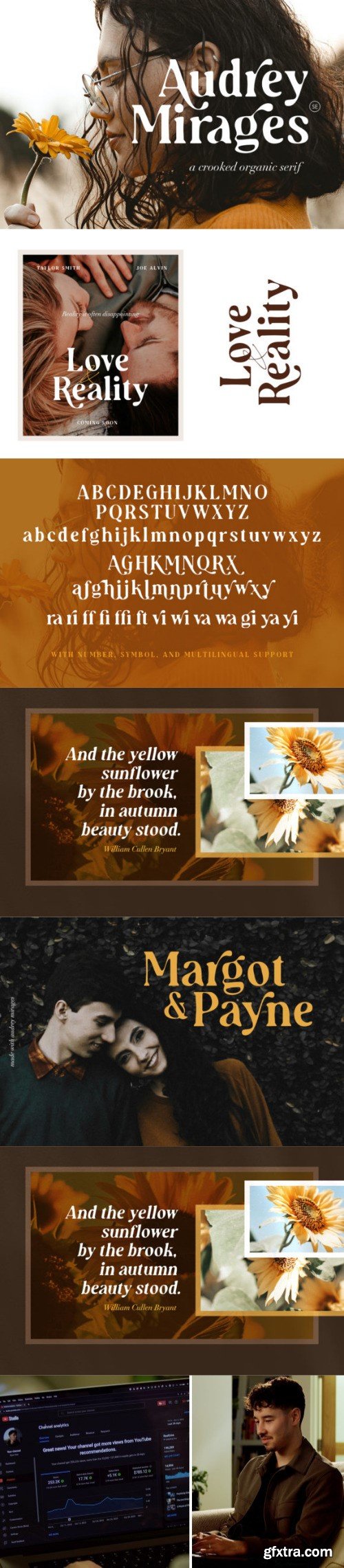
阿德里 米亚兹斯通字体
Audrey Mirages is an elegant and neat serif font. It can easily be matched to an incredibly large set of projects, so add it to your creative ideas and notice how it makes them stand out!